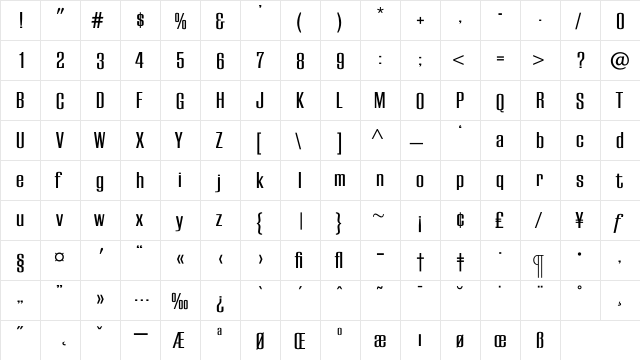
EuropaGrotesqueMedium Regular
Design Context for EuropaGrotesqueMedium Typeface
EuropaGrotesqueMedium offers clean, dependable letterforms without strong stylistic allegiance, making it a practical choice for designers who need flexibility.
Pro Tip: Use EuropaGrotesqueMedium in both headline and body roles to test its range before committing to a single application.